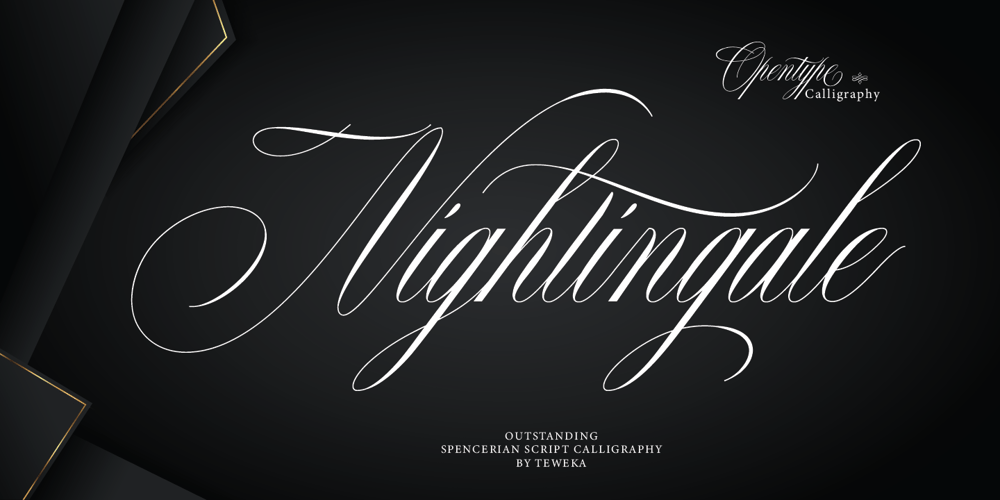
Nightingale Font Family was designed by Tuanku Muhammad Iqbal and published by Teweka. Nightingale contains 1 styles and family package options. Introducing Nightingale calligraphy font. Nightingale have a 631 glyph, Nightingale works well in Logo, poster, title, header, clothing and many more.